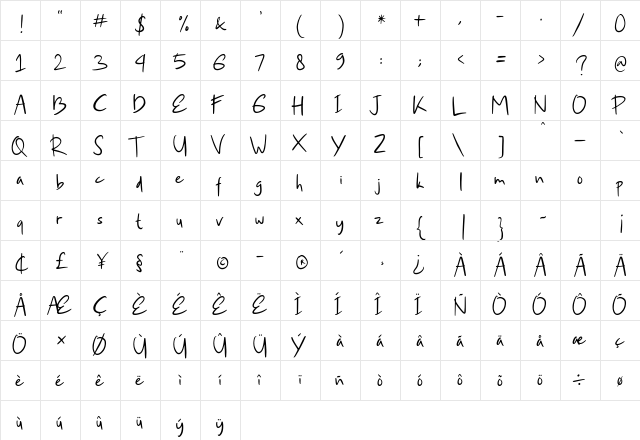
Candreva Regular
Design Context for Candreva Typeface
Candreva is a composed and adaptable typeface that performs quietly and consistently across a wide range of design contexts.